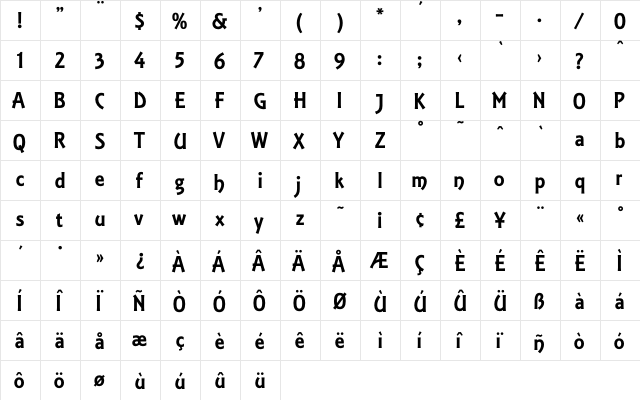
Equinox .. Plain
Design Context for Equinox Typeface
Equinox is a composed and adaptable typeface that performs quietly and consistently across a wide range of design contexts.